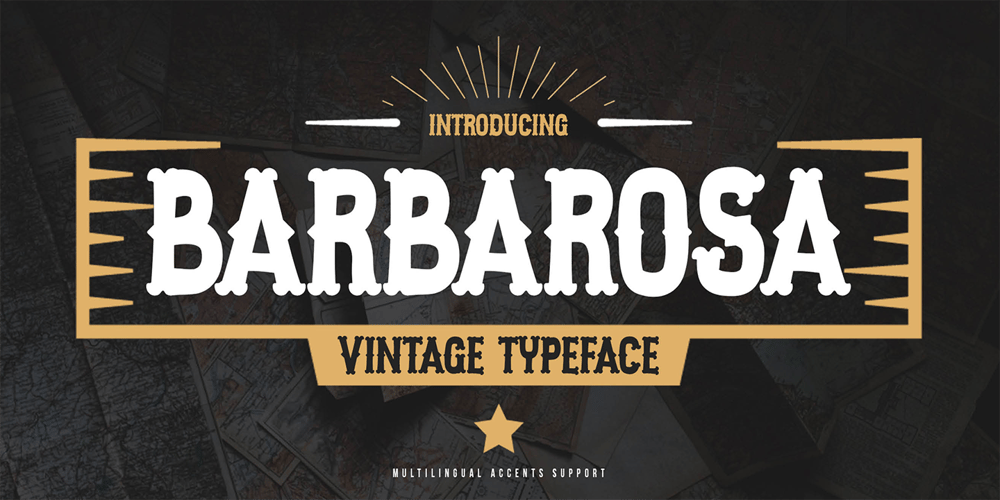
Barbarosa Font Family was designed by Abdul Malik Wisnu, Anang Fibriyanto and published by Gassstype. Barbarosa contains 1 styles and family package options. Introducing our latest display typeface called Barbarosa – Vintage Typeface is Display Vintage Serif can make your logotype become more interesting. Best Vintage font multilingual support. inspired by the decorative arts and architecture movement.